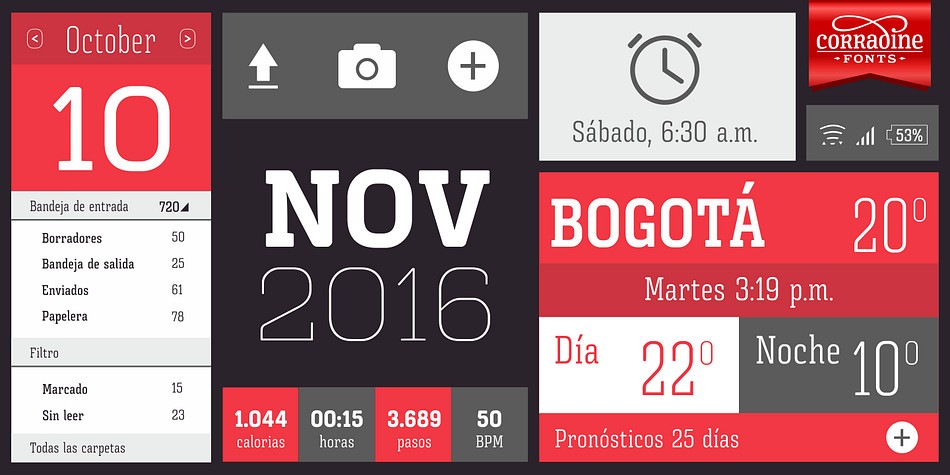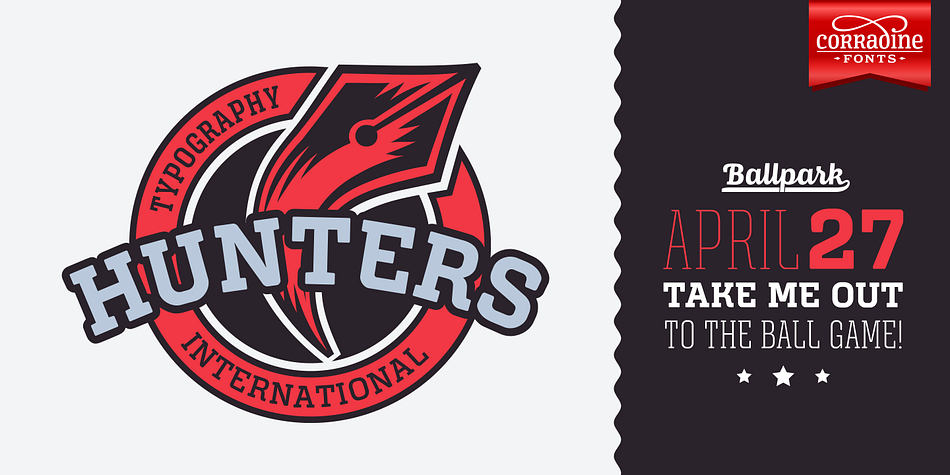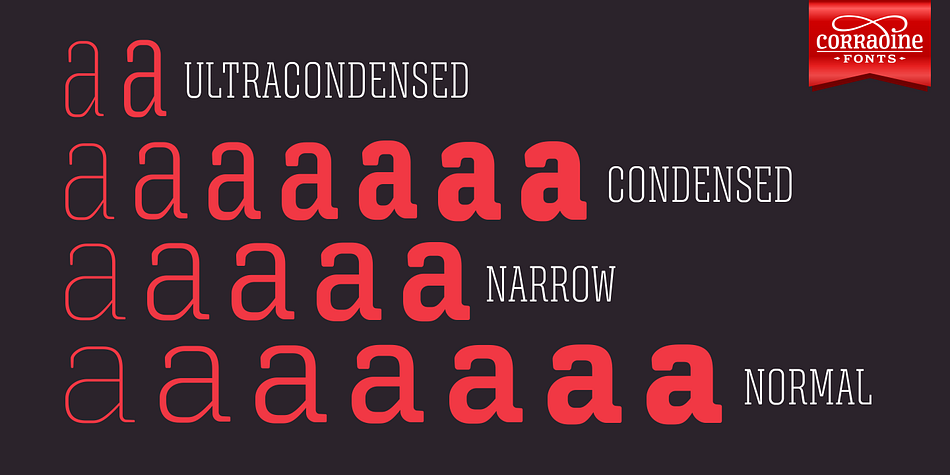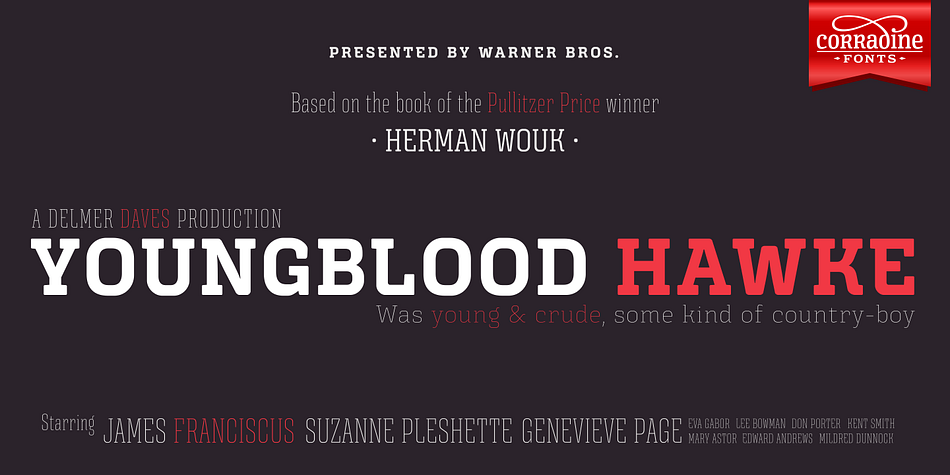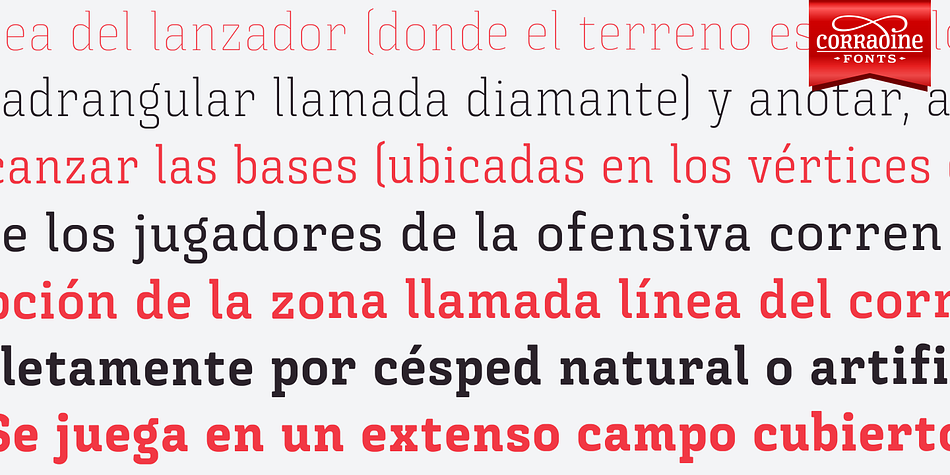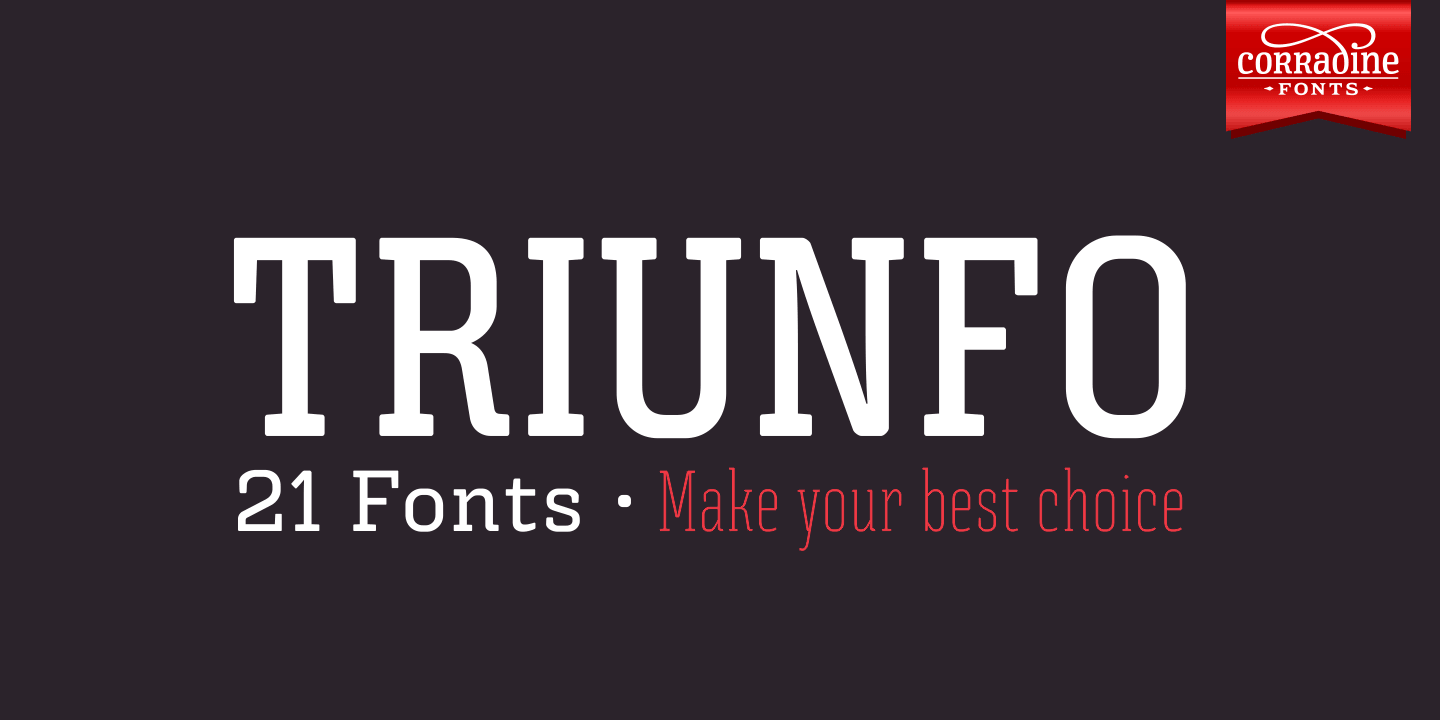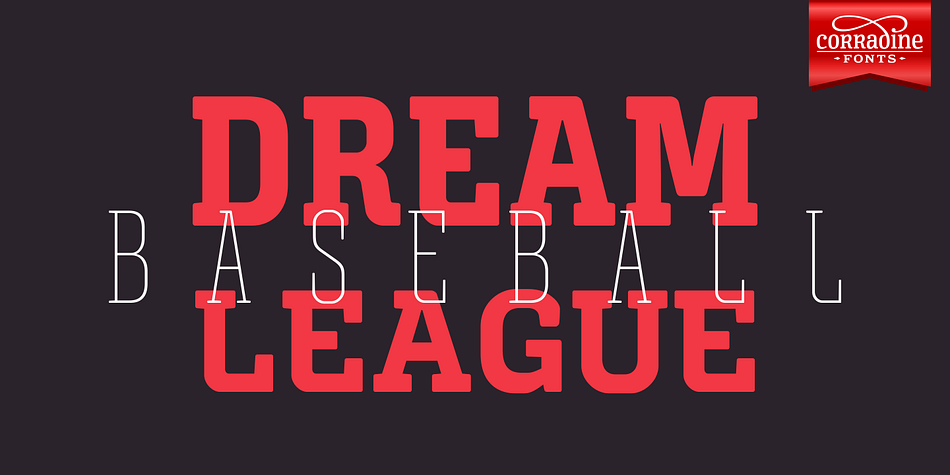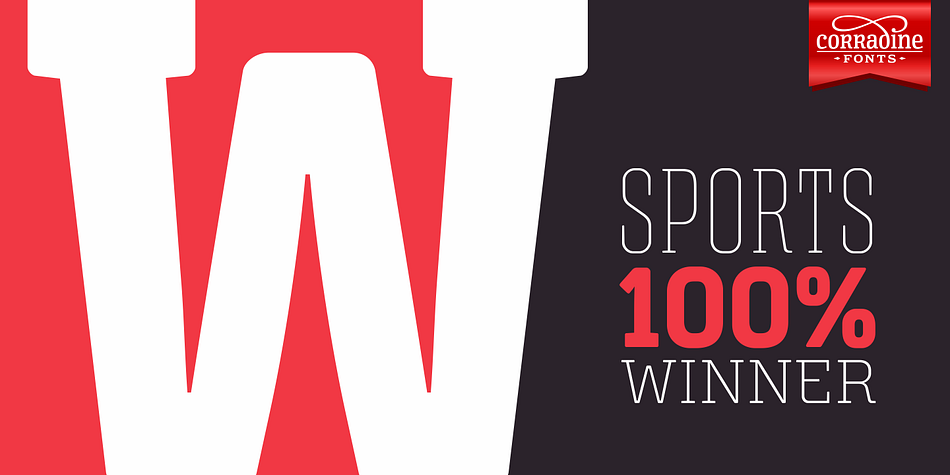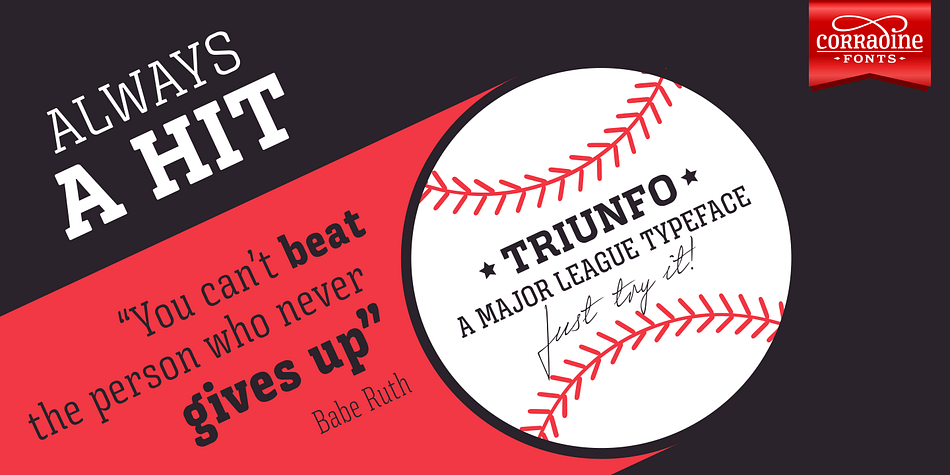
Designed by Duván Cárdenas and Manuel Eduardo Corradine, Triunfo is a slab serif font family. This typeface has twenty-one styles and was published by Corradine Fonts.
Triunfo is a modern slab serif font family with sports flavor. It comes in 21 variants of weight and wide that allows you to choose the best option to use in your work.